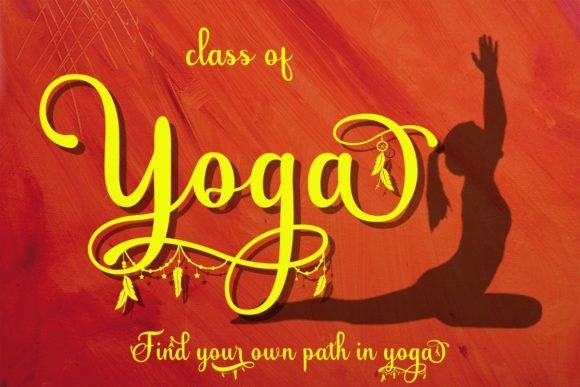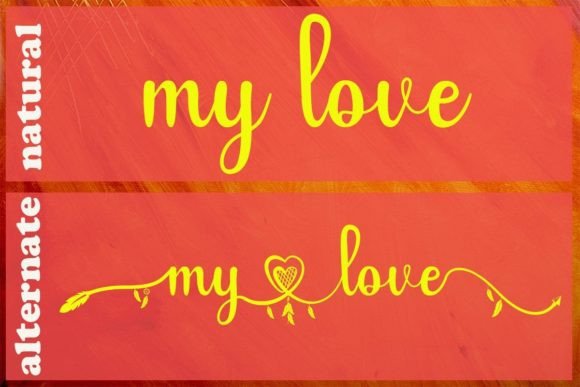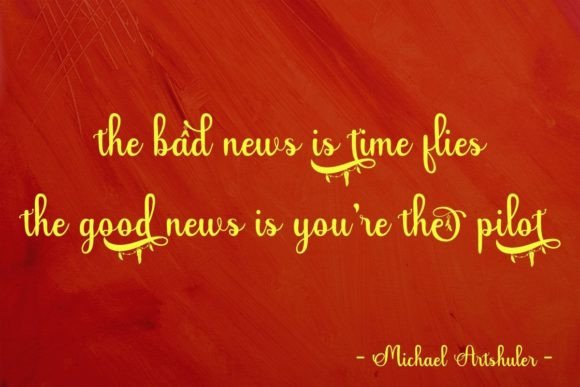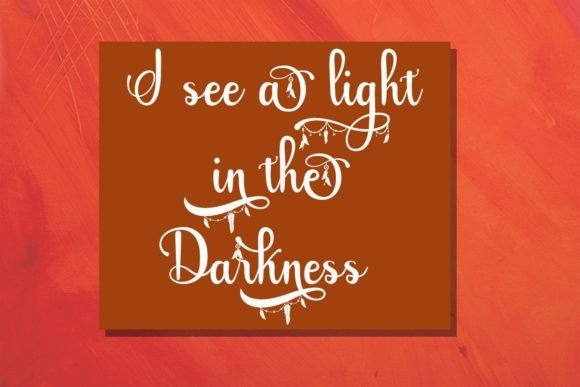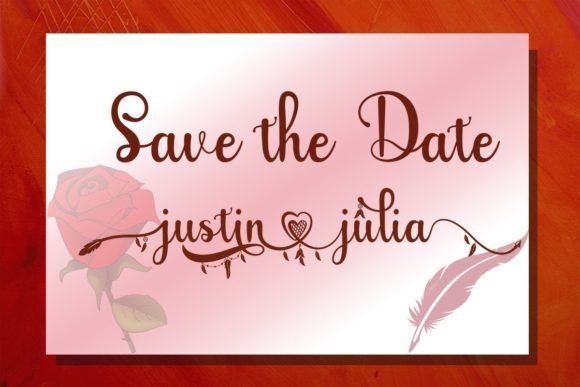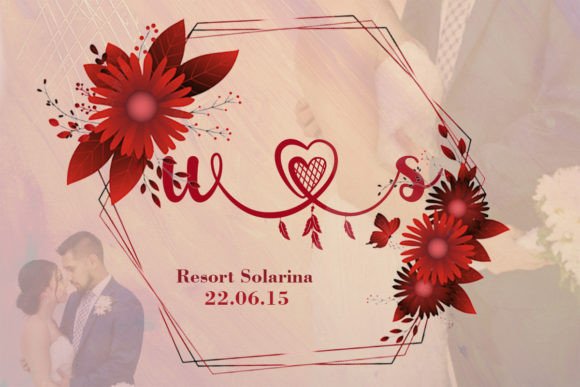
Hello Darling Font: The Perfect Handwritten Font for Your Creative Projects
Are you a designer or crafter looking for a unique and beautiful handwritten font to elevate your creative projects? Look no further than the Hello Darling Font! This stunning font is equipped with features like shaped hearts and Indian arrows, giving it an authentic feel that’s perfect for a variety of applications.
What Makes Hello Darling Font So Special?
Hello Darling Font is a one-of-a-kind handwritten font that’s designed to add a touch of elegance and whimsy to your designs. With its beautiful, flowing script and unique features, this font is sure to capture the attention of your audience. Whether you’re creating wedding invitations, social media posts, or greeting cards, Hello Darling Font is the perfect choice.
Key Features of Hello Darling Font
- Unique Handwritten Design: Hello Darling Font features a beautiful, handwritten design that’s perfect for creating elegant and eye-catching text.
- Shaped Hearts and Indian Arrows: This font comes equipped with shaped hearts and Indian arrows, adding a touch of whimsy and romance to your designs.
- Authentic Feel: This font has an authentic feel that’s perfect for creating designs that look like they were written by hand.
Uses for Hello Darling Font
Hello Darling Font is a versatile font that can be used for a variety of creative projects, including:
- Wedding Invitations: Create beautiful and elegant wedding invitations that set the tone for your special day.
- Stationary Art: Use Hello Darling Font to create stunning stationary art that’s perfect for letters, cards, and more.
- Social Media Posts: Add a touch of elegance and whimsy to your social media posts with this beautiful font.
- Greeting Cards: Create cute and engaging greeting cards for special occasions like birthdays, holidays, and more.
Why Designers and Crafters Love Hello Darling Font
Designers and crafters love Hello Darling Font for its unique and beautiful design, as well as its versatility. This font is easy to use and comes with a range of features that make it perfect for a variety of creative projects. With Hello Darling Font, you can:
- Create Unique and Eye-Catching Designs: This font is sure to capture the attention of your audience with its beautiful and unique design.
- Save Time and Effort: Hello Darling Font is easy to use and comes with a range of features that make it easy to create stunning designs.
- Add a Touch of Elegance and Whimsy: This font adds a touch of elegance and whimsy to your designs, making them perfect for special occasions.
If you’re looking for a beautiful and unique handwritten font to elevate your creative projects, look no further than Hello Darling Font. With its stunning design, unique features, and versatility, this font is perfect for designers and crafters who want to create eye-catching and elegant designs. Whether you’re creating wedding invitations, social media posts, or greeting cards, Hello Darling Font is the perfect choice.